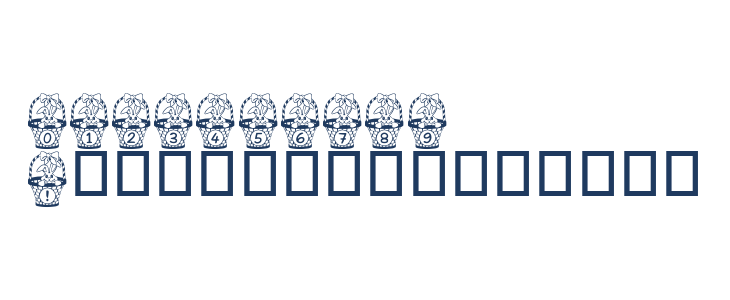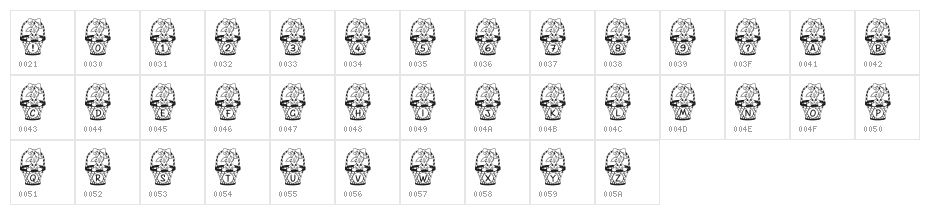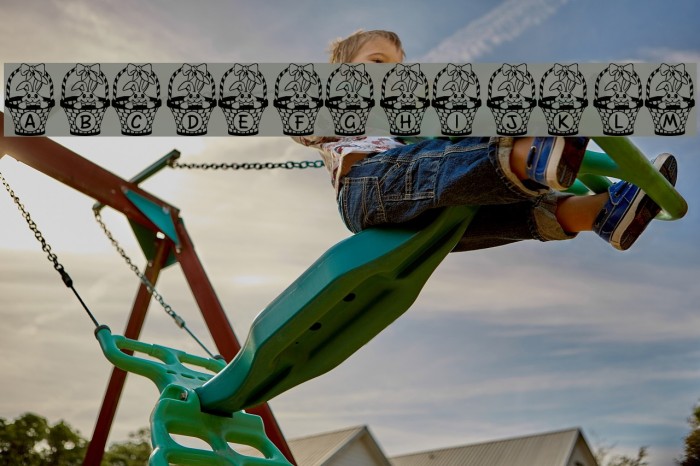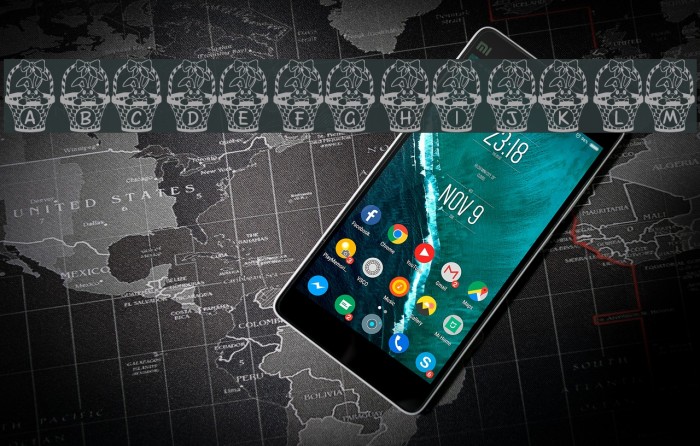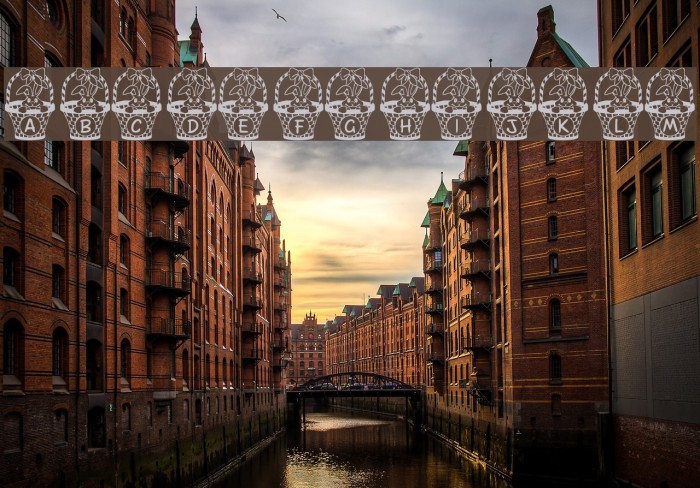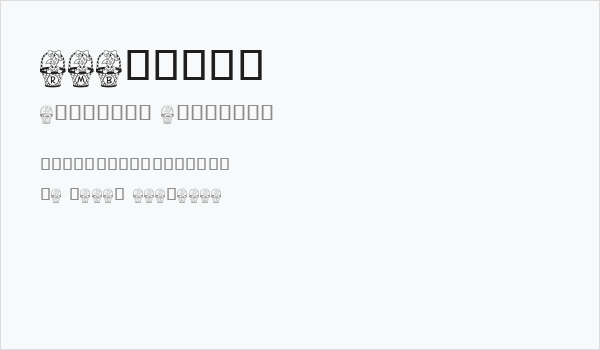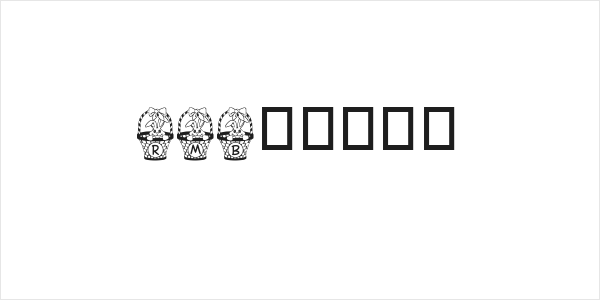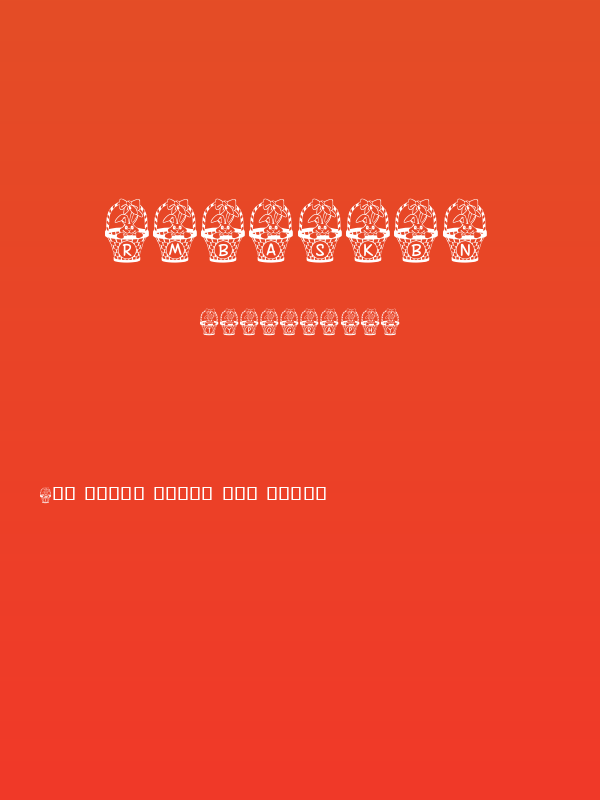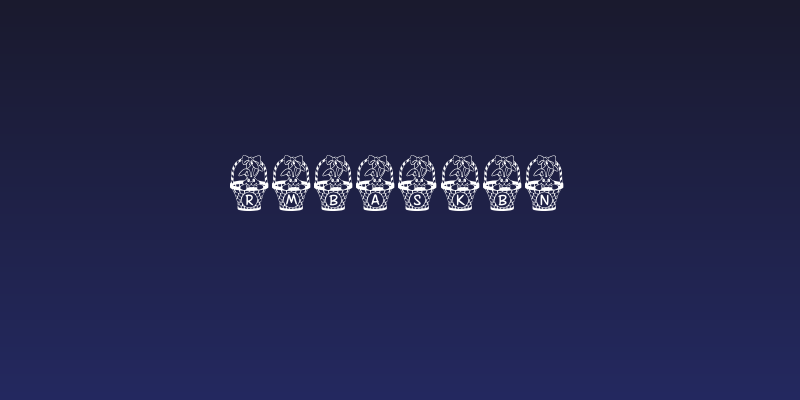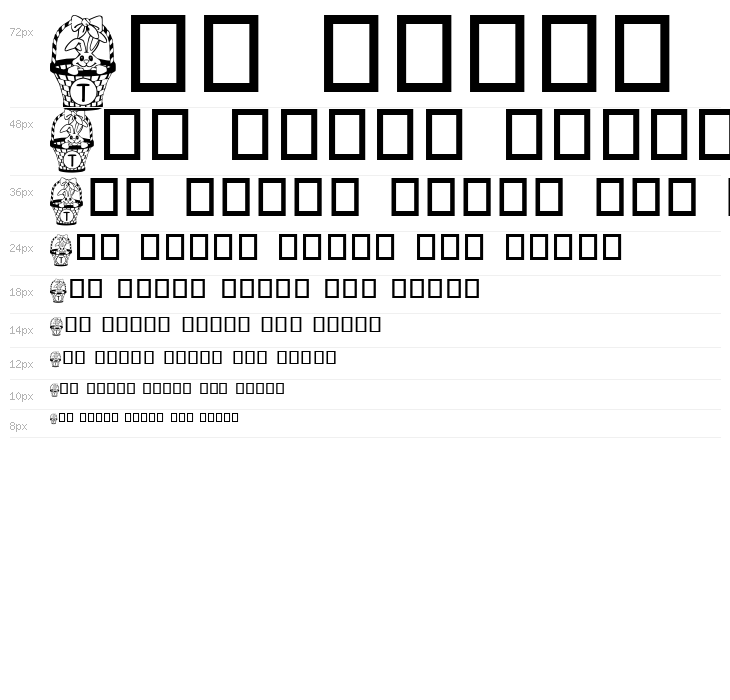
RMBaskbn Font
RMBaskbn Description
This font features a playful and decorative style, with each character enclosed within a basket-like design adorned with a bow and leaves. The uppercase and lowercase letters, along with numbers, are all encapsulated in this unique motif, creating a whimsical and charming appearance. The characters are bold and prominent, making them stand out within the intricate design. This font is ideal for projects that require a touch of fun and creativity, such as children's books, playful invitations, or themed party decorations. Its distinct style is sure to capture attention and add a unique flair to any design.
| Proposed Projects | Children's books, themed invitations, party decorations. |